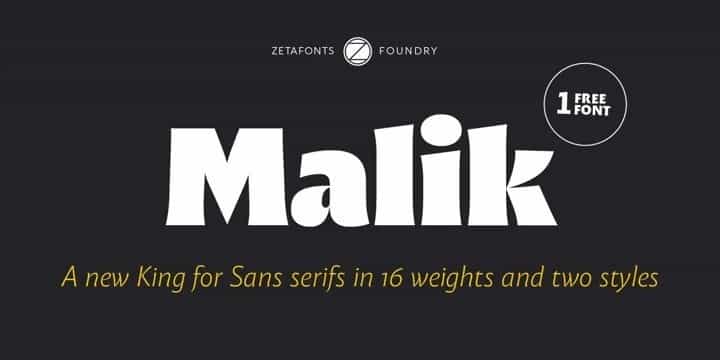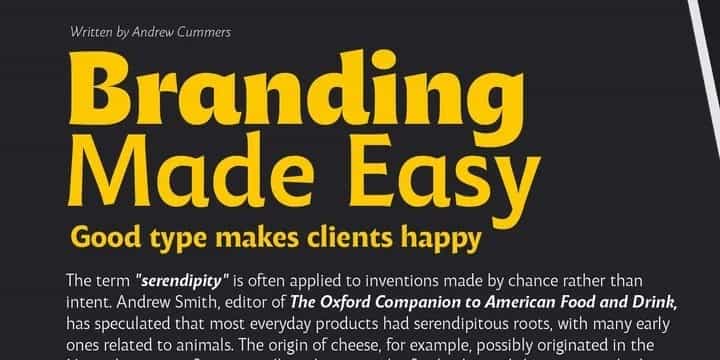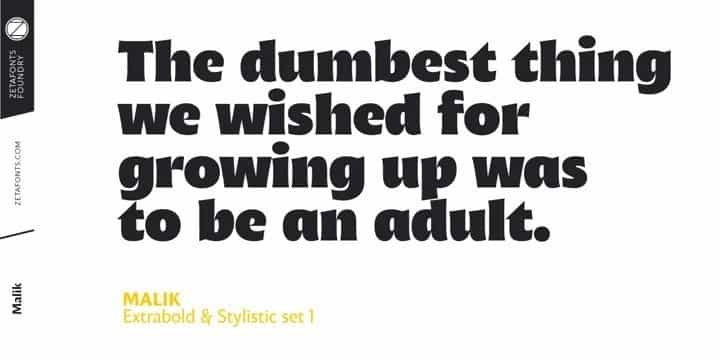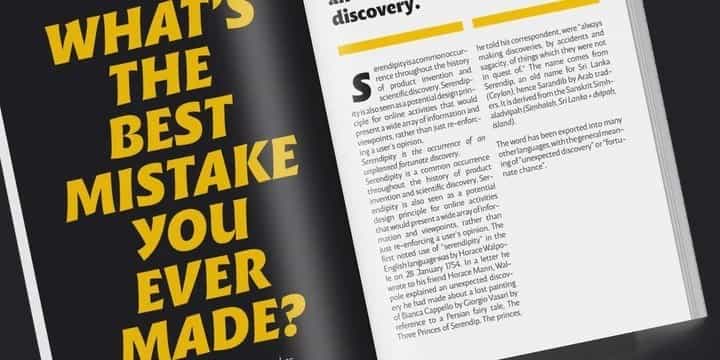
Malik is a new sans serif font family based on modern and transitional fonts. Malik also has high contrast between light and dark areas which give it a sleek look; besides, it has a higher x-height to make writing more legible.